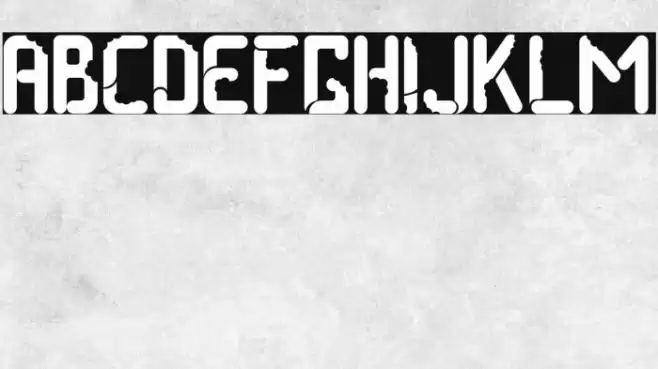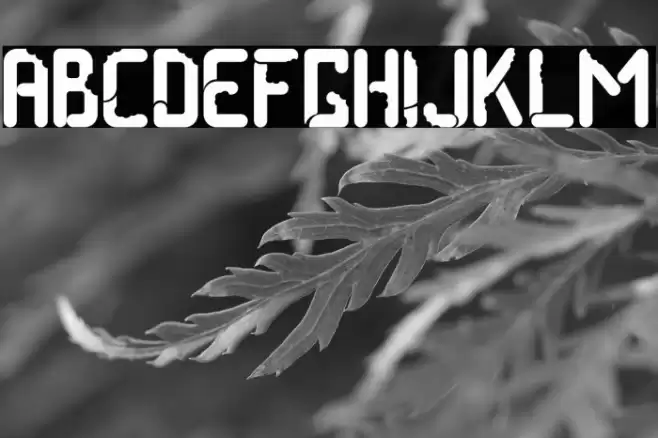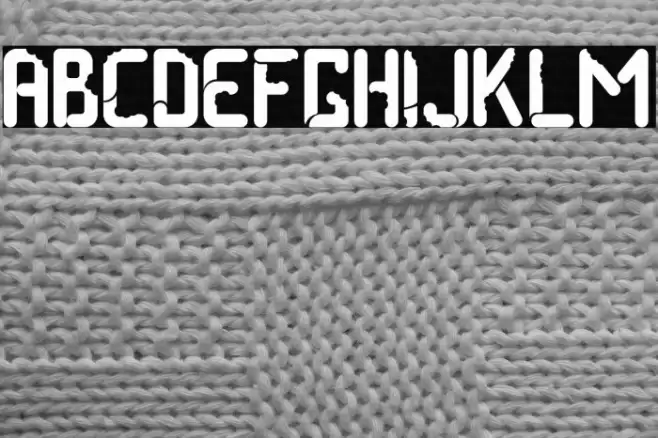
Taste Of Tradition Font
Taste Of Tradition Description
This font features a bold, geometric design with a modern and industrial feel. The characters are constructed with thick, uniform strokes and have a distinct stencil-like appearance, characterized by breaks in the lines that add a unique, rugged texture. The uppercase and lowercase letters maintain a consistent style, with angular edges and a blocky structure. Numbers and special characters follow the same design principles, ensuring a cohesive look across all glyphs. The font's strong presence makes it suitable for impactful designs.
A bold, geometric font with a modern, stencil-like design from Uncategorized fonts.
- Font: Taste Of Tradition
- Proposed Projects: Ideal for branding, posters, signage, and any project requiring a strong, industrial aesthetic.